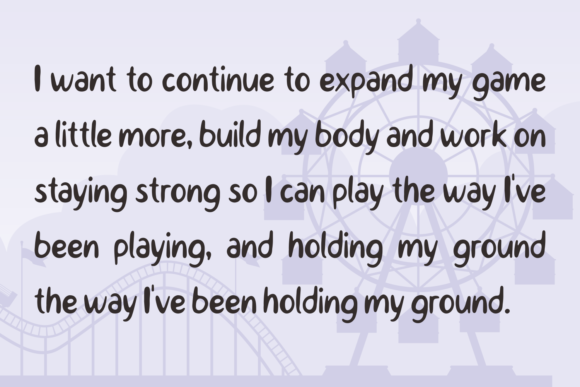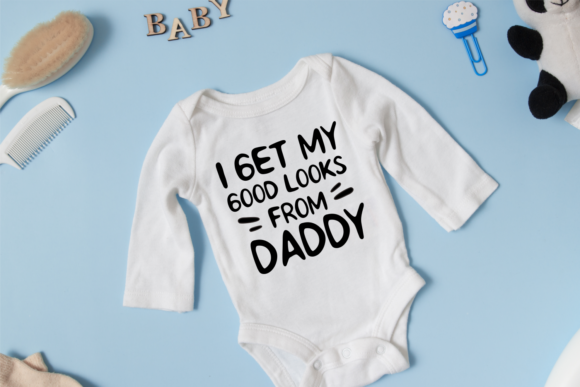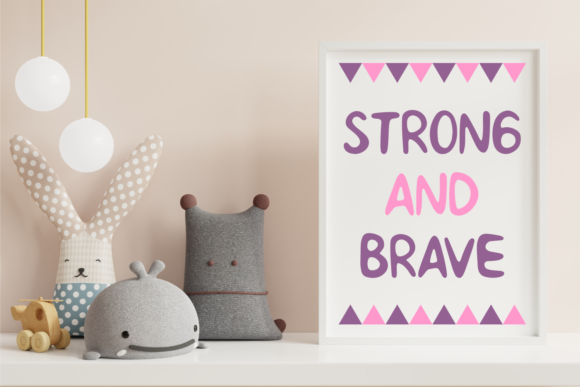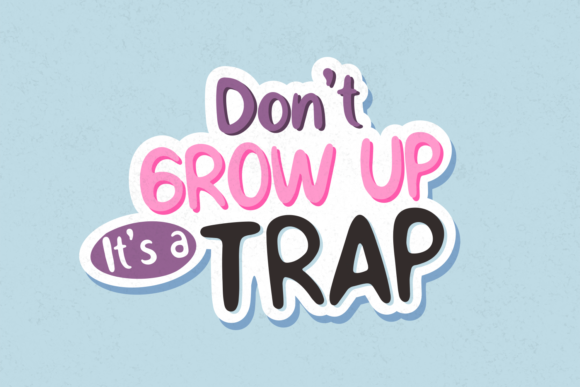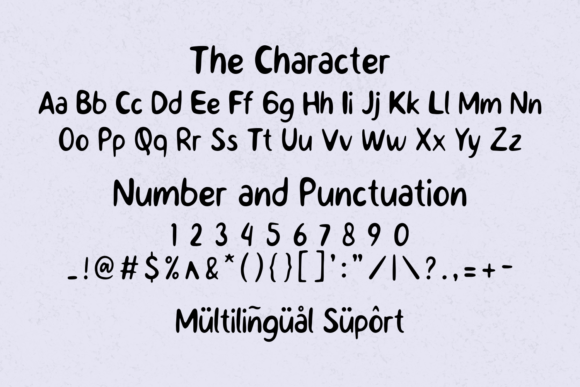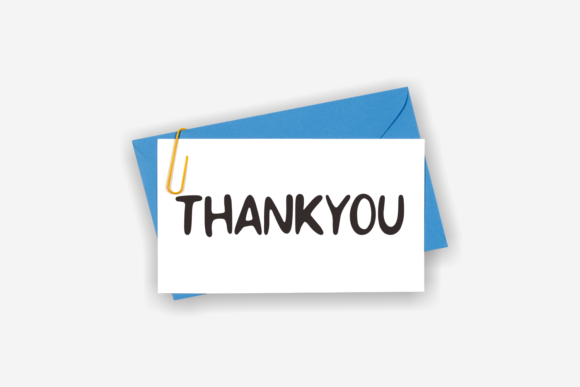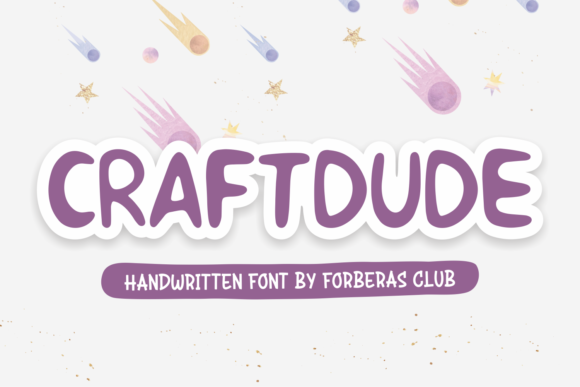
Introducing Craft Dude Font: Elevate Your Designs with Elegance and Sophistication
Are you tired of using the same old fonts for your designs? Look no further! Craft Dude Font is here to revolutionize the way you approach typography. This fancy and elegant display font is specifically crafted to impress your audience and make your branding shine like never before. With its unique and beautiful touch, Craft Dude Font is the perfect addition to your design arsenal.
Craft Dude Font is a versatile and smooth font that can be used for a wide range of design projects. Whether you’re a designer, crafter, or DIY enthusiast, this font is perfect for headings, logos, ads, printed quotes, packaging, and even website or social media branding. Its elegant and wonderful style will make your projects dance and come alive!
What Sets Craft Dude Font Apart
So, what makes Craft Dude Font so special? Here are a few key features that set it apart from other fonts:
- Unique and Beautiful Touch: Every letter in Craft Dude Font has a unique and beautiful touch that will add a touch of elegance and sophistication to your designs.
- Smooth and Elegant: This font is perfect for designs that require a smooth and elegant look. Its smooth lines and curves make it ideal for cut machines like Cricut and Silhouette.
- Versatile: Craft Dude Font can be used for a wide range of design projects, from headings and logos to ads and packaging.
Perfect for Cut Machines
Craft Dude Font is specifically designed to be compatible with cut machines like Cricut and Silhouette. Its smooth lines and curves make it perfect for cutting out intricate designs and shapes. Whether you’re creating custom vinyl decals, iron-on designs, or paper crafts, Craft Dude Font is the perfect choice.
How to Use Craft Dude Font in Your Designs
Using Craft Dude Font in your designs is easy! Here are a few tips to get you started:
- Headings and Titles: Use Craft Dude Font for headings and titles to add a touch of elegance and sophistication to your designs.
- Logos and Branding: Use Craft Dude Font for logos and branding to create a consistent and professional look.
- Ads and Marketing Materials: Use Craft Dude Font for ads and marketing materials to grab attention and make a lasting impression.
- Packaging and Labels: Use Craft Dude Font for packaging and labels to add a touch of elegance and sophistication to your products.
| Author | Forberas Club |
In conclusion, Craft Dude Font is a must-have for designers and crafters looking to elevate their designs with elegance and sophistication. Its unique and beautiful touch, smooth lines, and versatility make it perfect for a wide range of design projects. Whether you’re creating headings, logos, ads, or packaging, Craft Dude Font is the perfect choice. So why wait? Download Craft Dude Font today and take your designs to the next level!
- Fancy and elegant display font
- Unique and beautiful touch
- Smooth and elegant style
- Versatile and compatible with cut machines like Cricut and Silhouette
- Perfect for headings, logos, ads, packaging, and more